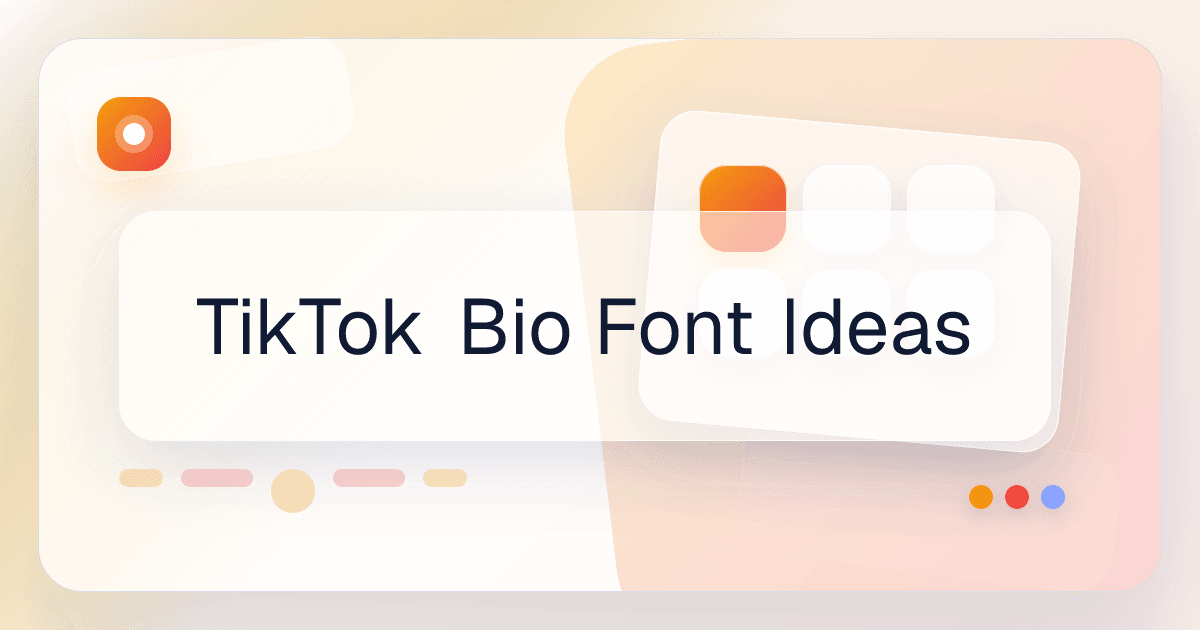
TikTok Bio Font Ideas
TikTok bios need to communicate identity quickly. The strongest font ideas tend to combine a short name or niche phrase with one visual style that feels energetic but still easy to read on mobile.
Use one strong style direction
A bio usually looks more branded when it sticks to one main type treatment, such as bold sans, small caps, or a soft script accent.
Keep high-value words easy to scan
Your niche, role, or content focus should still be recognizable after styling. Choose styles that support clarity rather than burying the words.
Match the bio with your creator identity
The most effective TikTok profiles often carry the same font mood across display name, bio, and caption hooks so the profile feels coherent.
What font styles are best for TikTok bios?
Bold sans, small caps, and light script styles are often the best mix of personality and readability for TikTok bios.
Should TikTok bio text be bold or aesthetic?
That depends on the creator brand. Bold styles usually work better for punchy positioning, while softer aesthetic styles work better for lifestyle or mood-driven profiles.